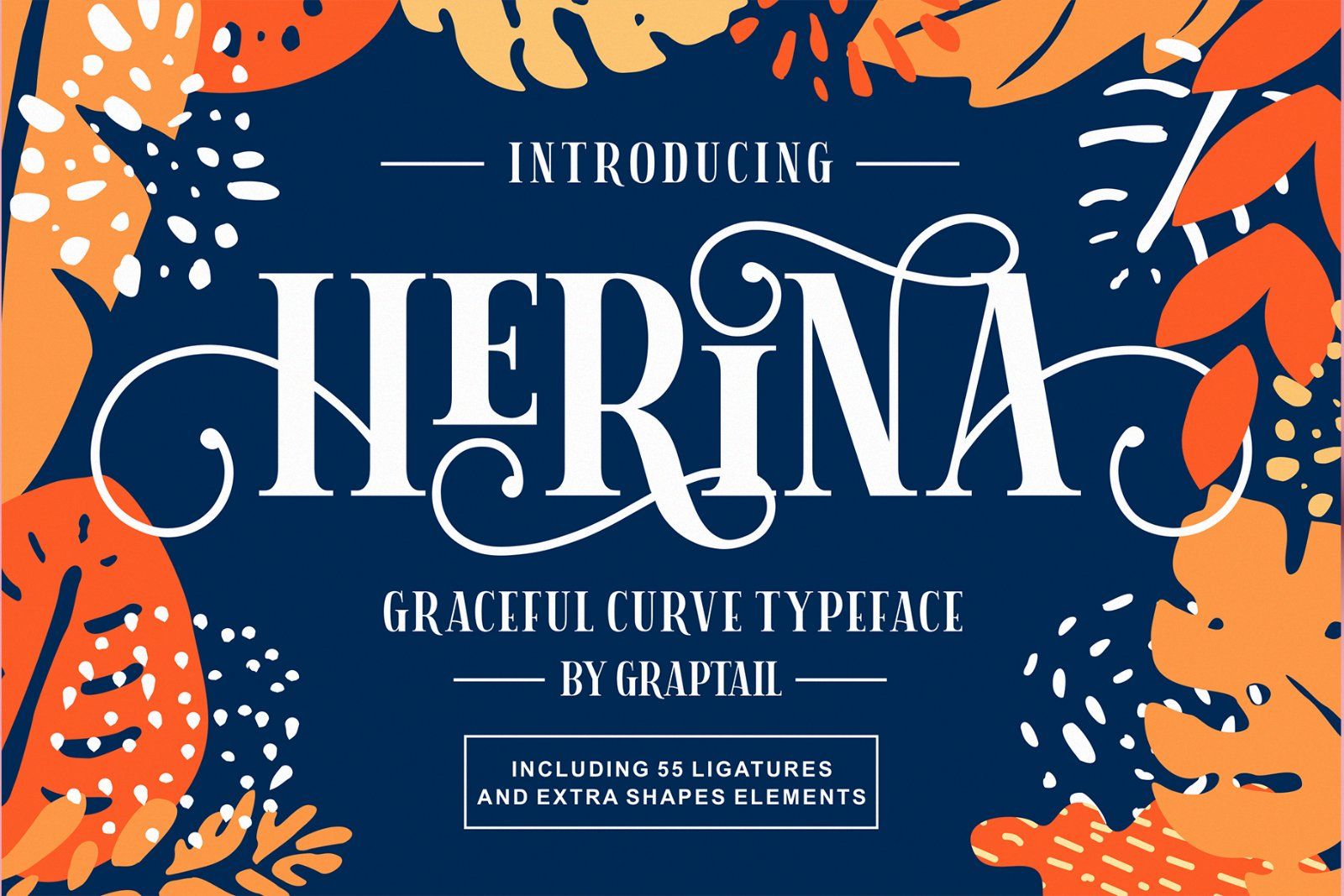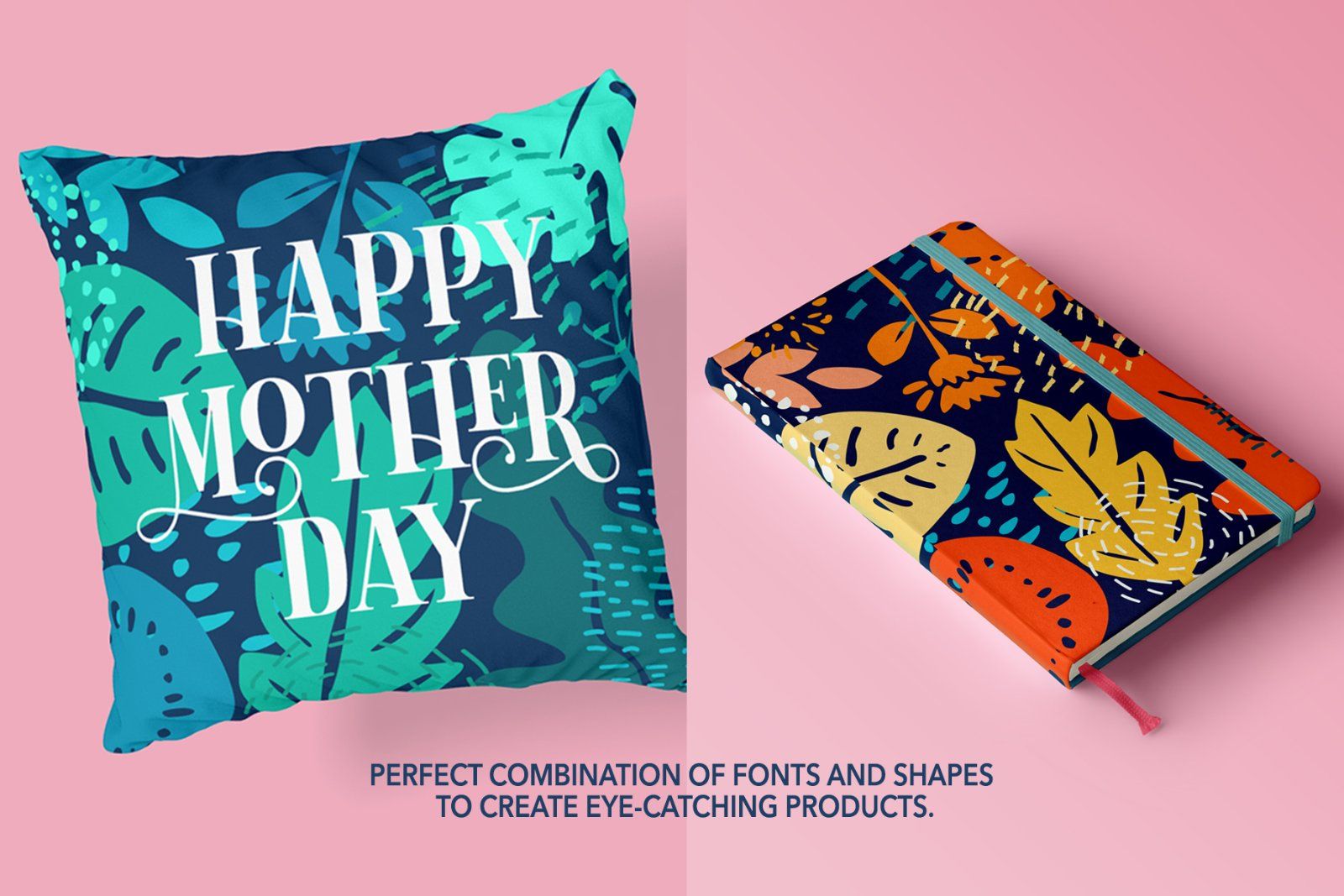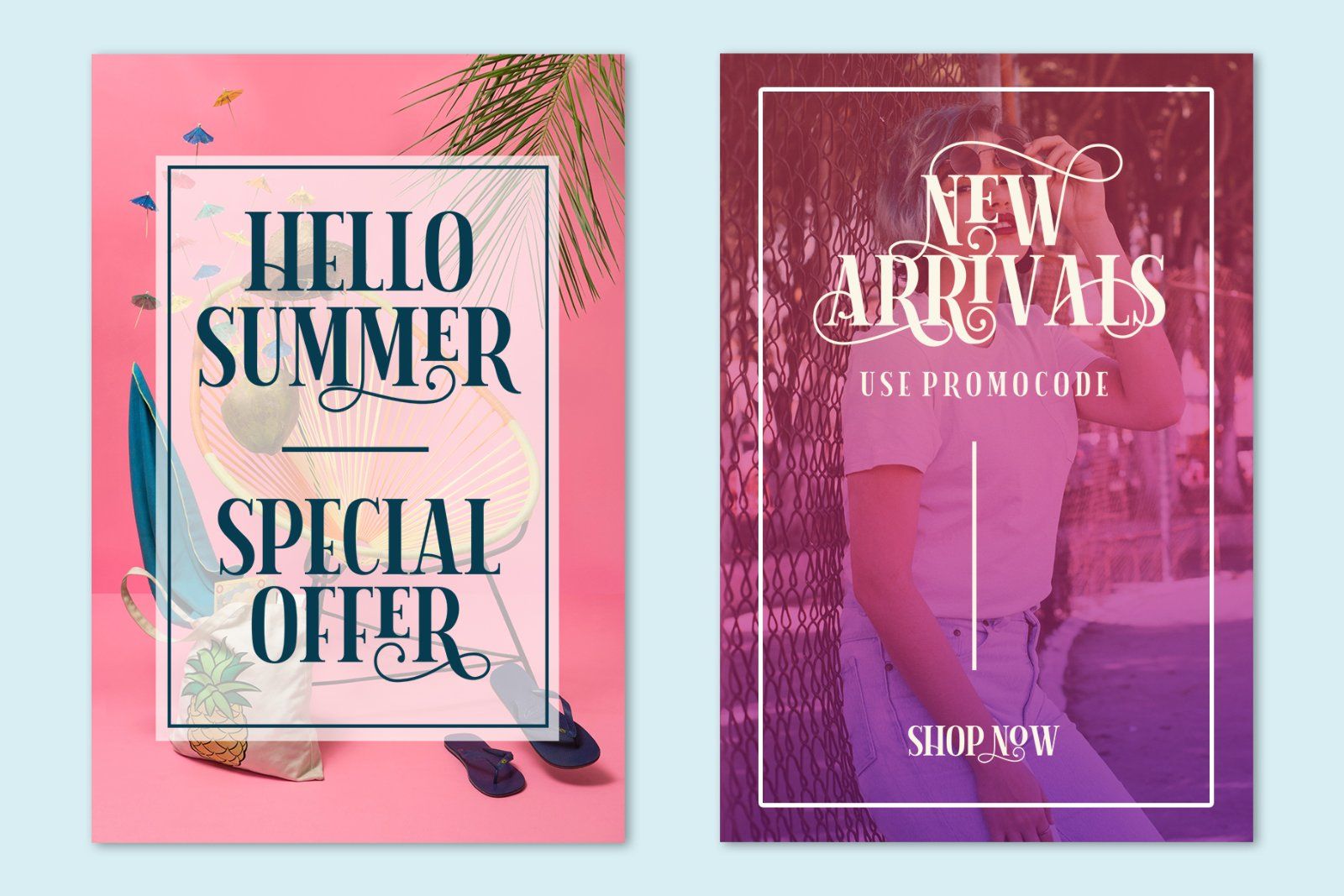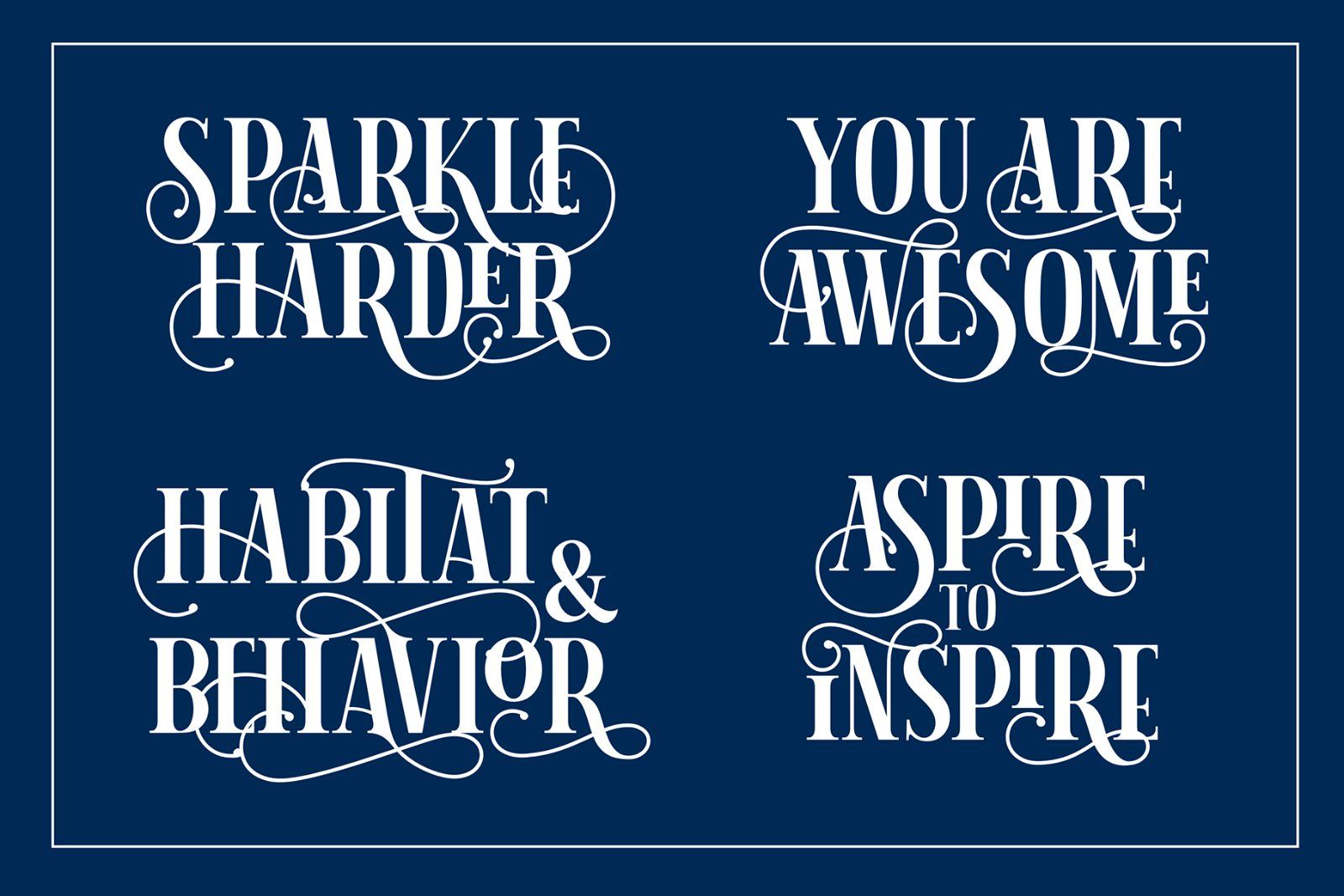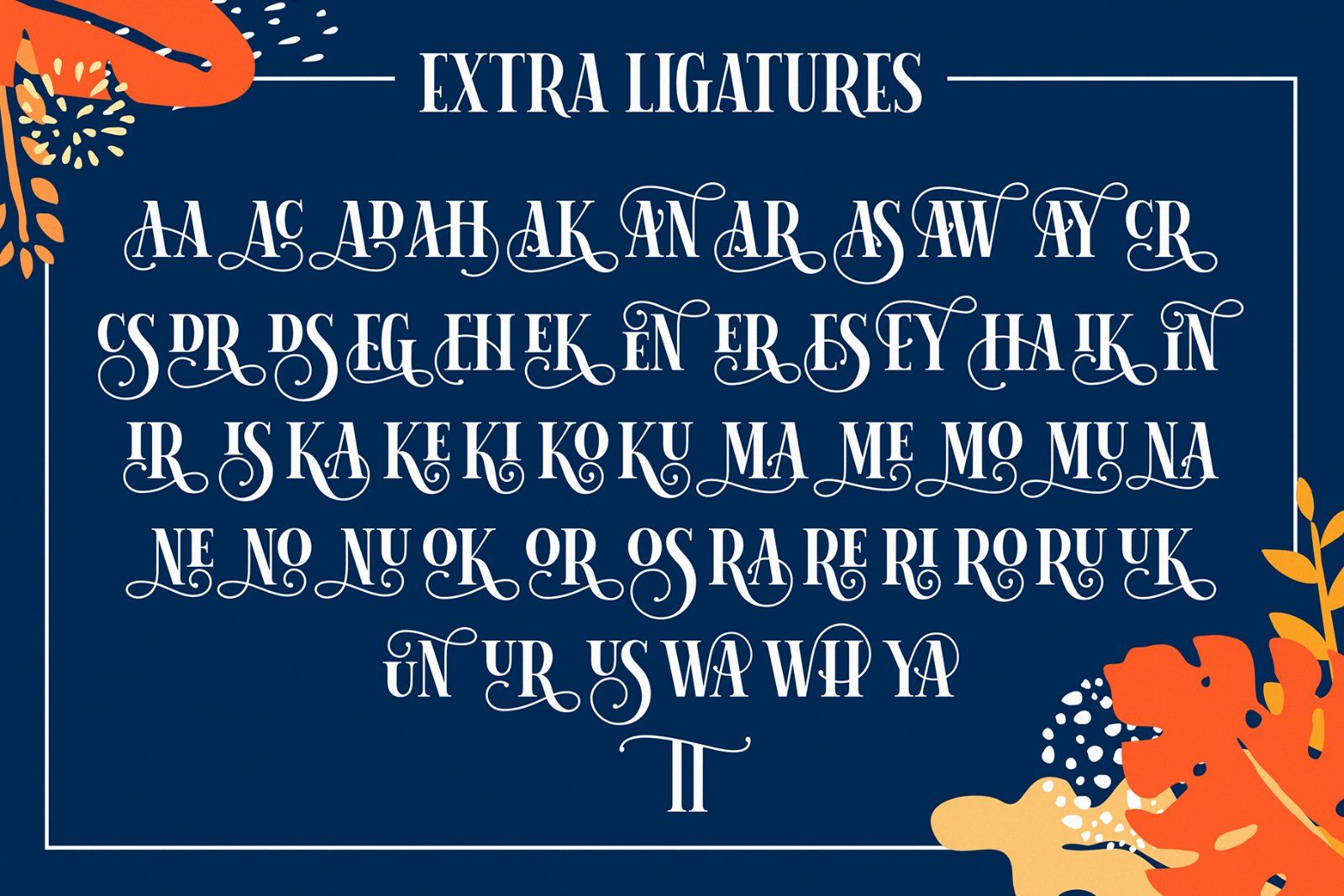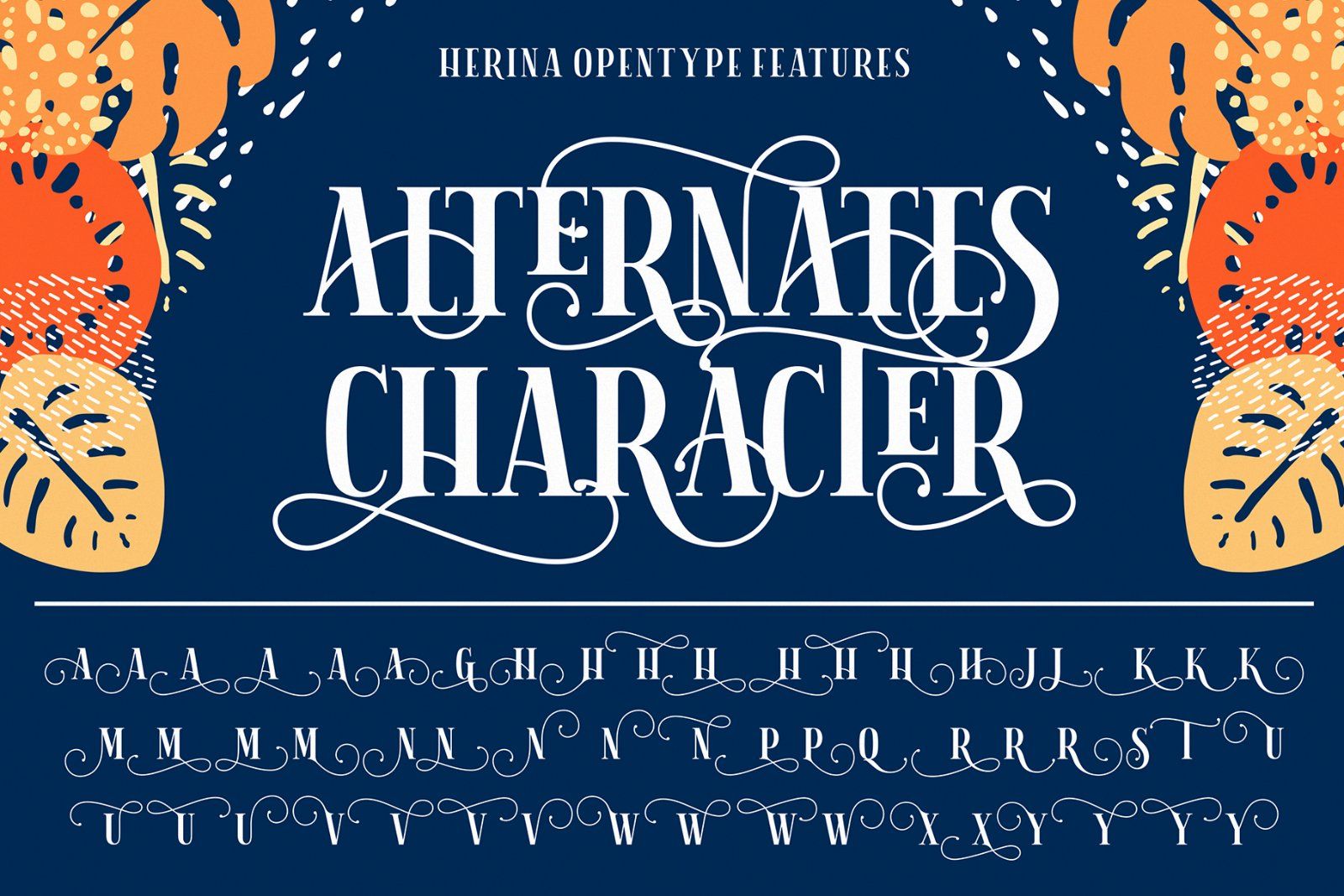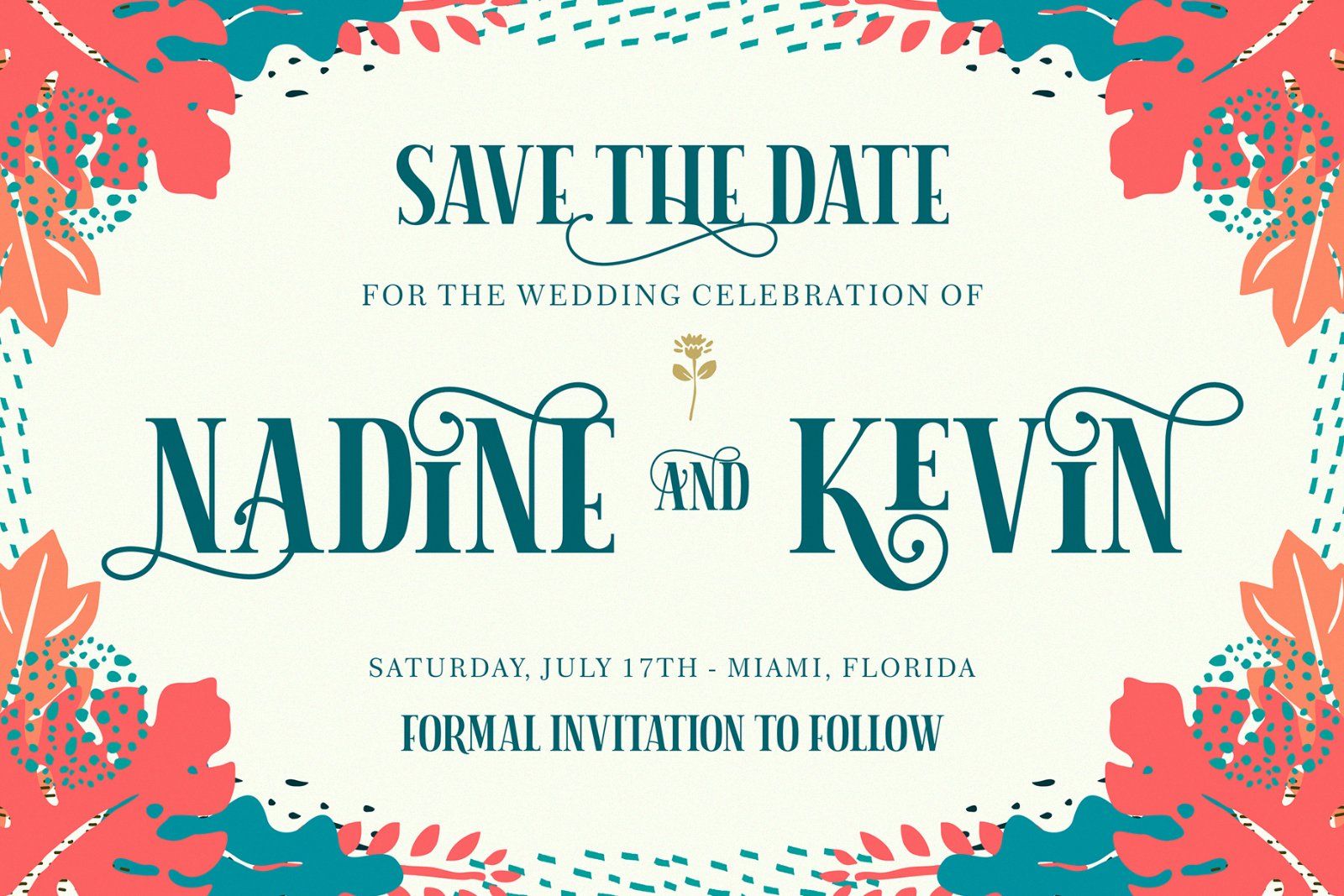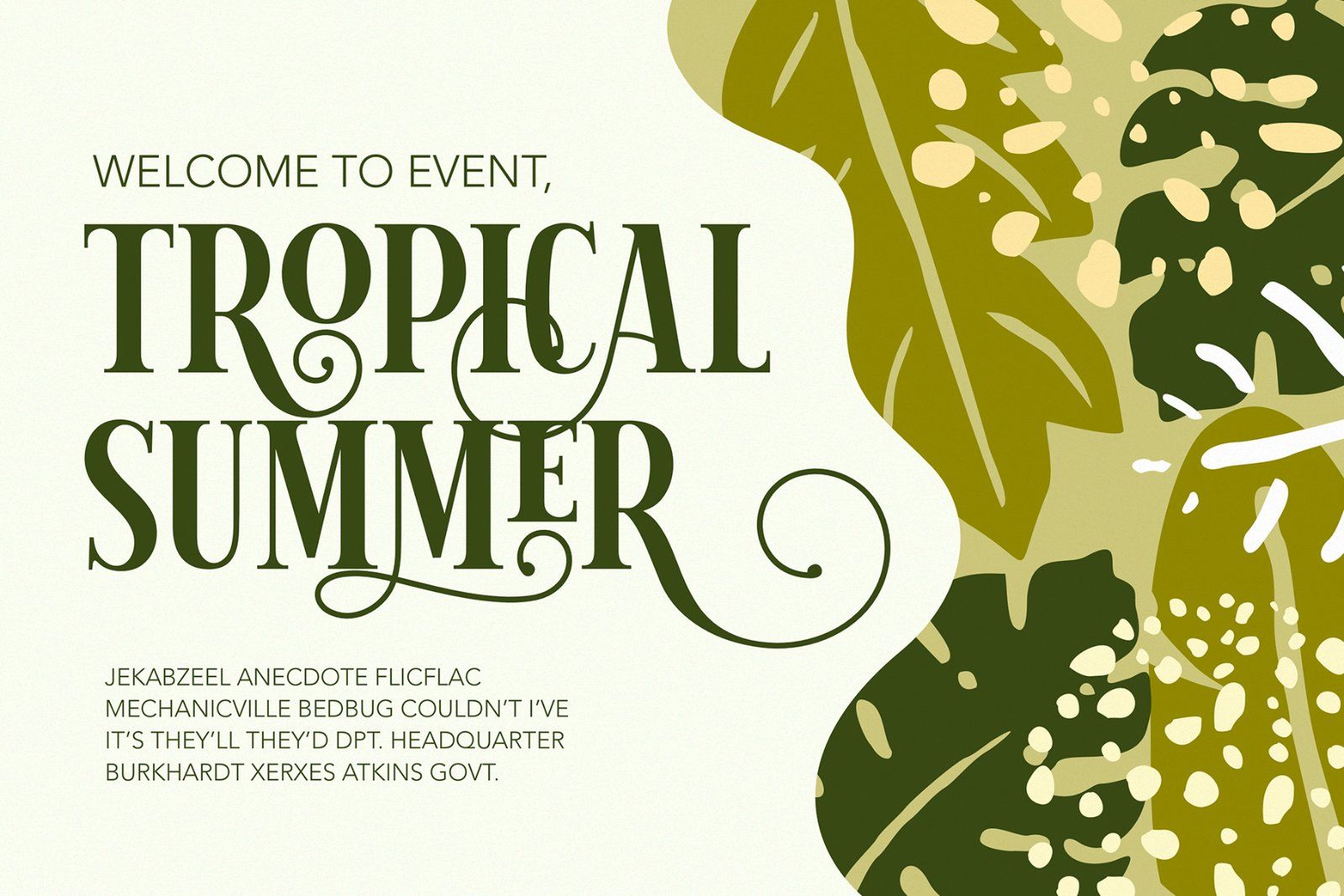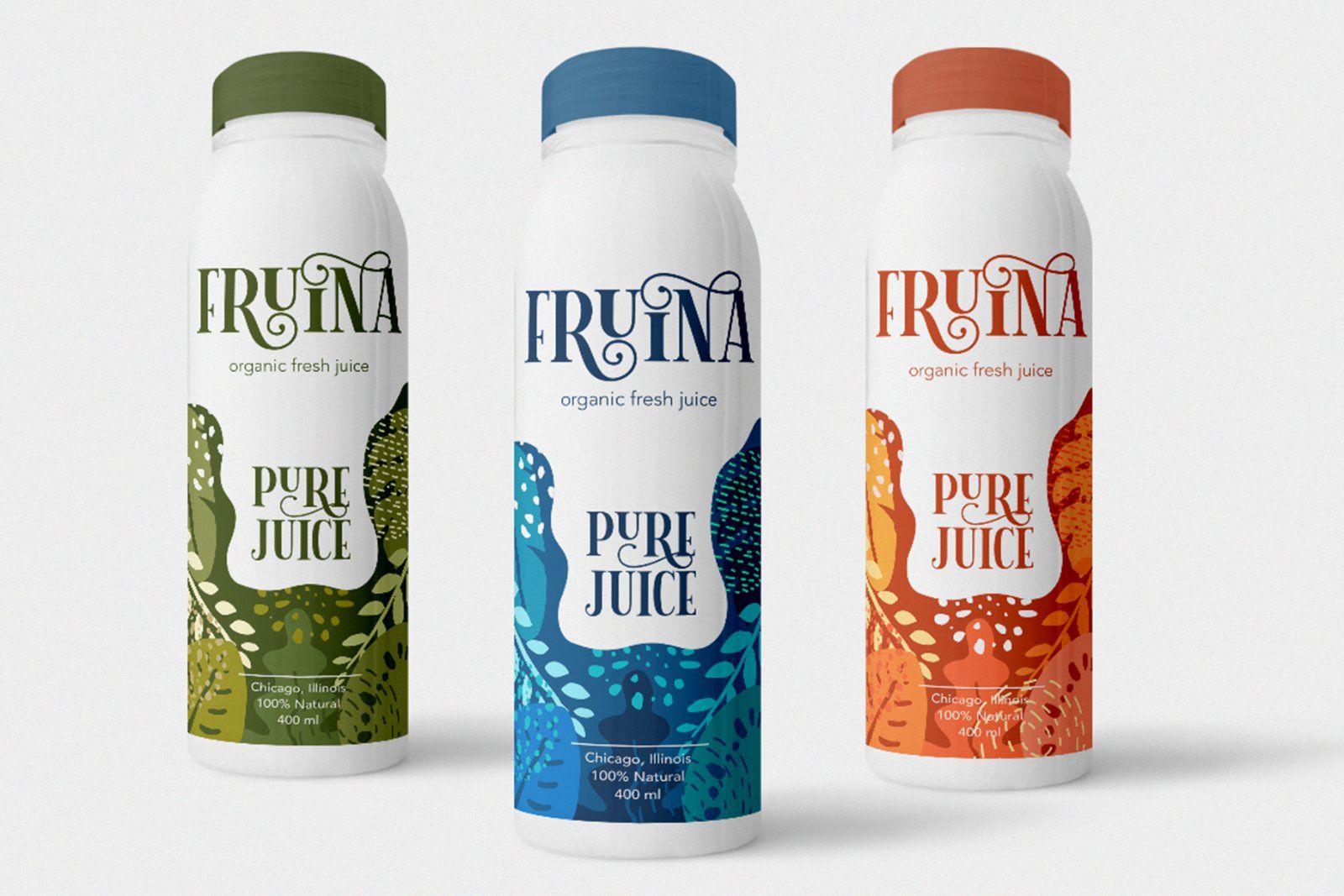
Herina is an uppercase serif font with charming curves of each letter form. This font is inspired by the letters of the past that are very beautiful and combined with a modern appearance that has a charming shape. With abstract shapes elements that give a modern impression of the results of this combination. Its wide range of standard ligature and stylistic alternates allows versatile design options and works perfectly for headlines, logos, posters, packaging, T-shirts, postcards and much more. Furthermore, I included a bonus of 30 shapes element, which I used for this presentation!